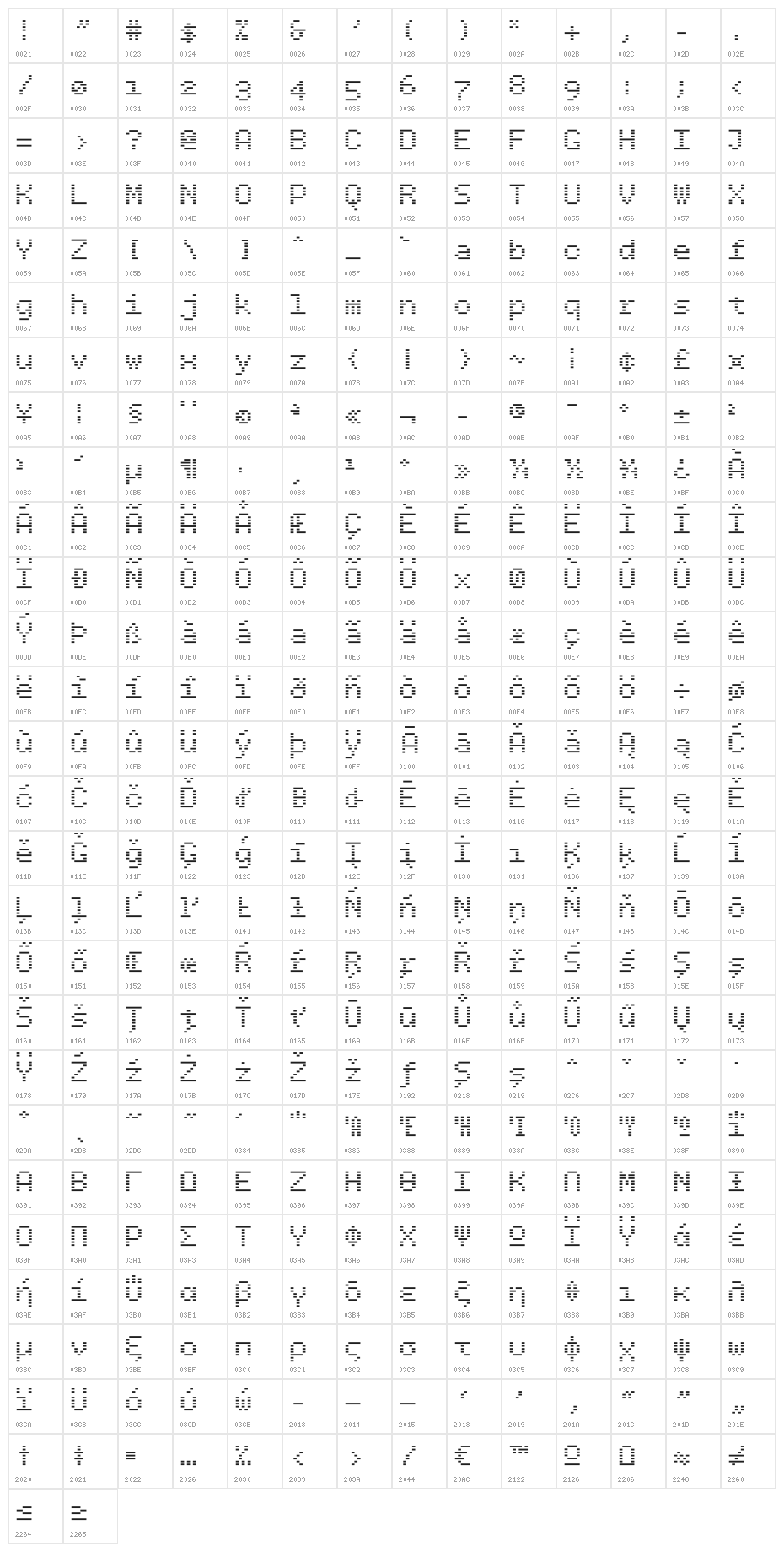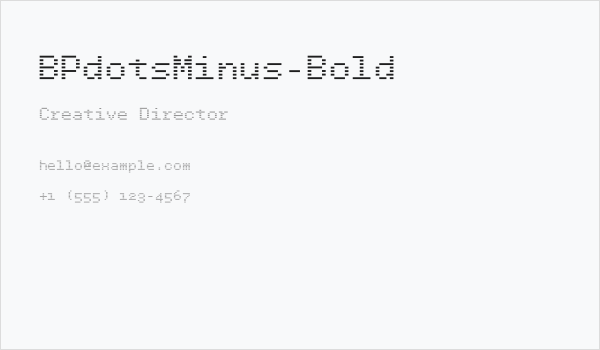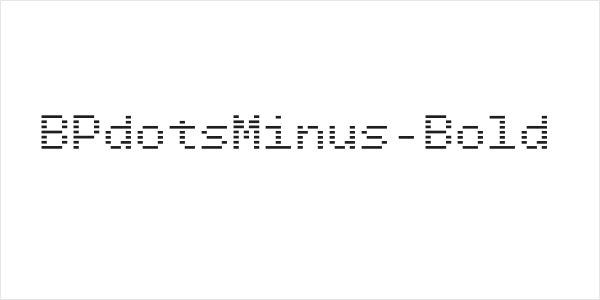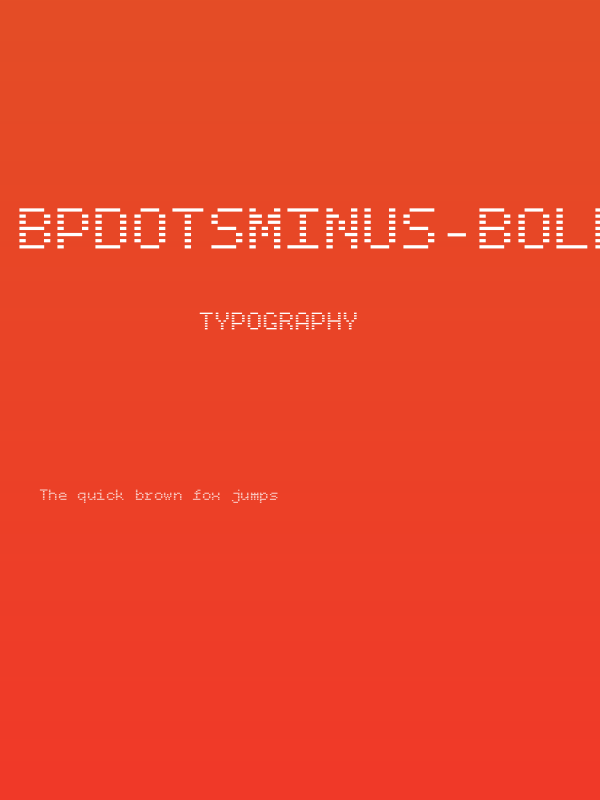
BPdotsMinus-Bold Font
BPdotsMinus-Bold Description
This font features a unique dot matrix style, reminiscent of digital displays or retro computer screens. Each character is constructed from a grid of small, evenly spaced dots, creating a pixelated effect. The uppercase and lowercase letters maintain a consistent height, with a geometric and uniform appearance. Numbers and special characters follow the same dot pattern, ensuring a cohesive look across all glyphs. This font's design is both modern and nostalgic, capturing the essence of early digital typography while maintaining clarity and readability.
Overall StyleModern, Vintage
Use CaseHeadlines, Logos, Digital displays
Proposed ProjectsIdeal for digital-themed projects, retro video game designs, tech-related branding, or any creative work that requires a vintage digital look.